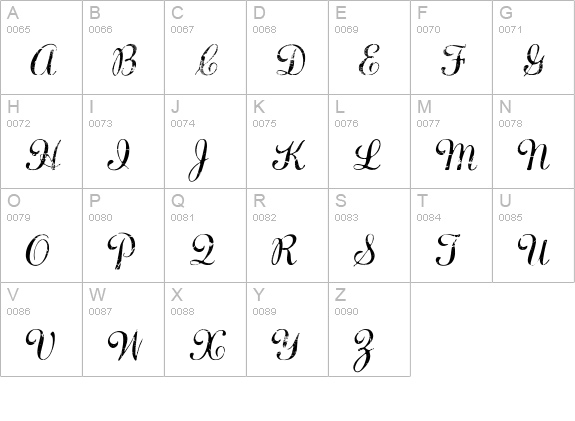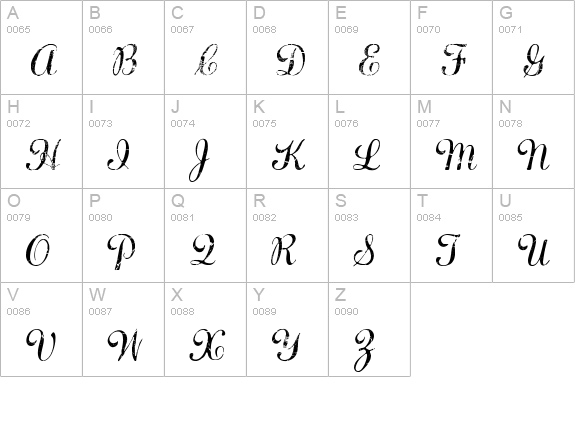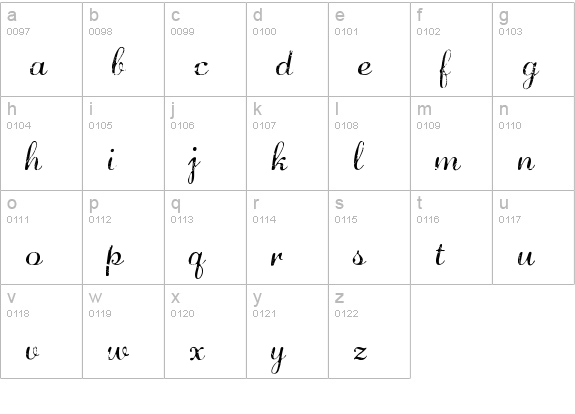
Diamond Dust Font Details
Diamond Dust is a stunningly elegant font that exudes sophistication and grace. Its delicate curves and fine lines make it perfect for adding a touch of luxury to any design project. With its versatile nature, Diamond Dust can be used for a wide range of applications, from invitations and logos to branding materials and website designs. What sets Diamond Dust apart is that it is not only visually captivating, but it is also free. Yes, you read that right. This remarkable font is freely available to download at FontsMarket.com. It is a rare gem in the world of typography, where high-quality fonts are often accompanied by a hefty price tag. Whether you are a professional designer or a creative enthusiast, Diamond Dust opens up a world of possibilities. Its timeless beauty will captivate your audience and leave a lasting impression. The clean and well-defined characters ensure legibility, even at small sizes, making it an ideal choice for both print and digital projects. The versatility of Diamond Dust lies not only in its visual appeal but also in its extensive character set. It supports multiple languages, allowing you to communicate your message effectively to a global audience. The font also includes a wide range of punctuation marks, numerals, and special characters, making it versatile for various design needs. Downloading Diamond Dust is a breeze. Simply visit FontsMarket.com and find the font that will elevate your designs to new heights. With just a few clicks, you can have this exquisite font at your fingertips, ready to enhance your creative endeavors. So why wait? Discover the magic and allure of Diamond Dust font today. Let its shimmering beauty transform your designs and make a lasting impression. Download this exceptional font for free at FontsMarket.com and unlock a world of endless possibilities.